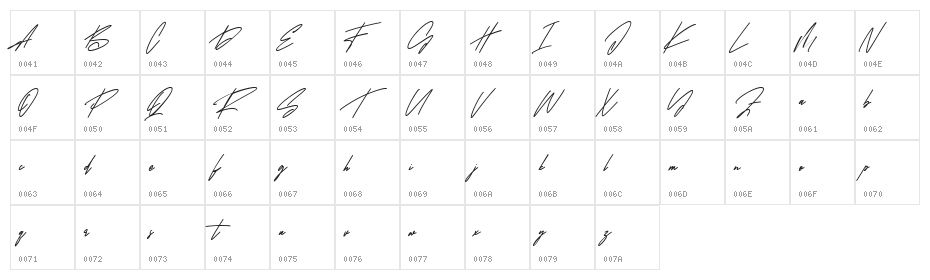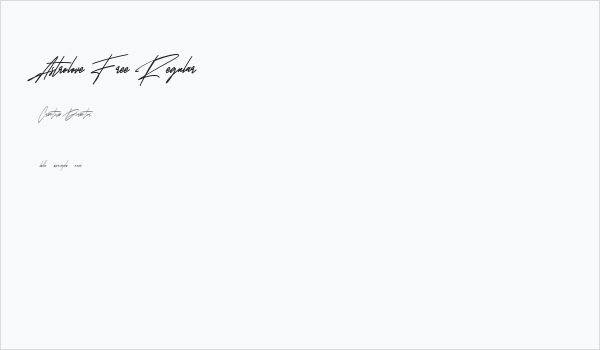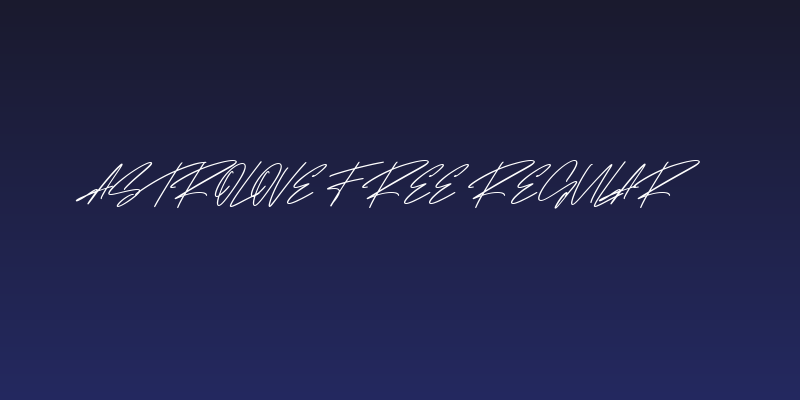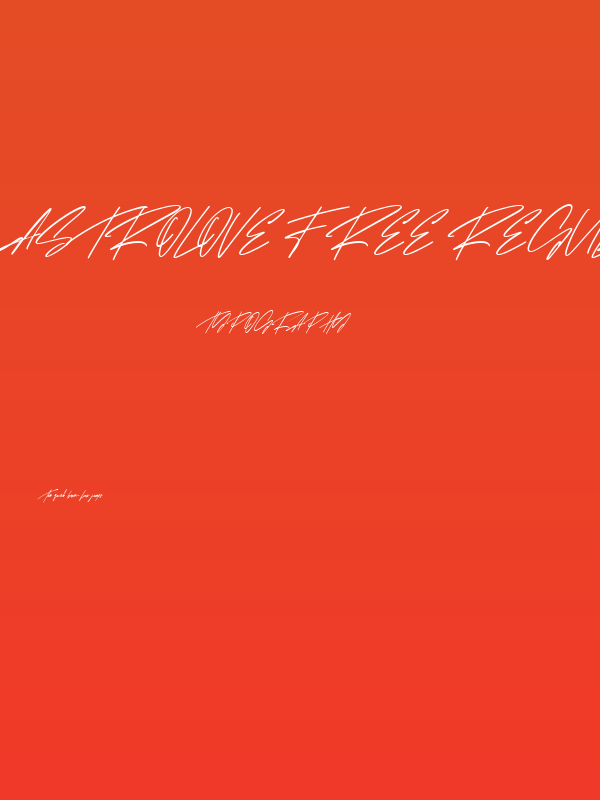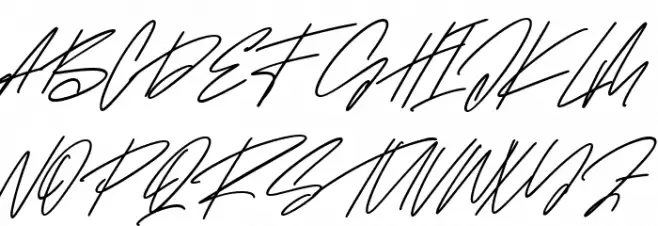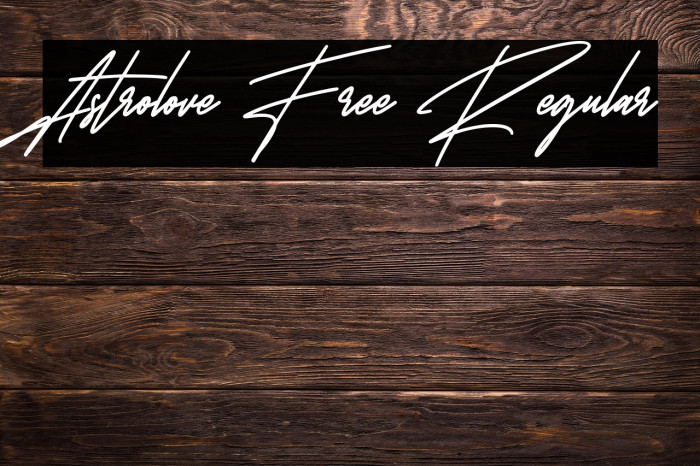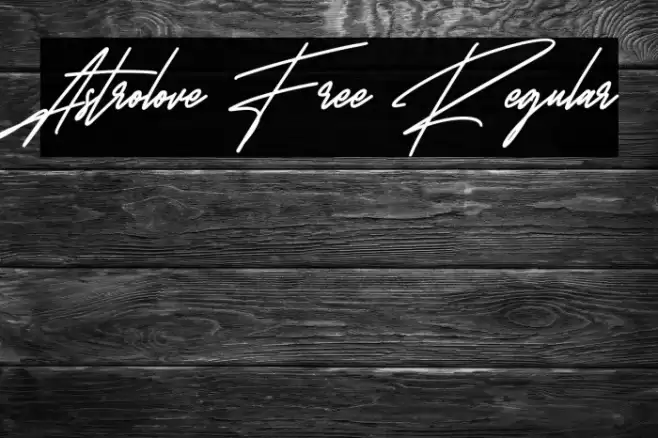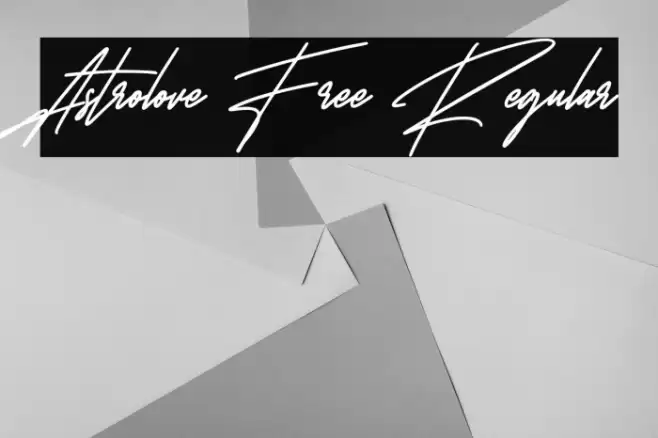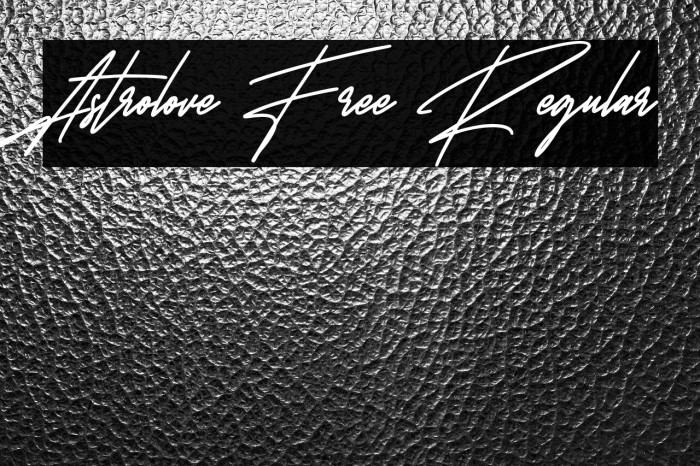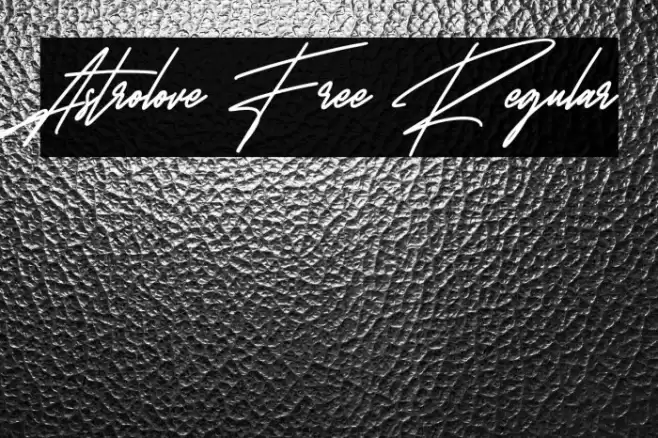
Astrolove Free Regular Font
This font exudes a dynamic and expressive style, characterized by its fluid, cursive script that mimics the natural flow of handwriting. The letters are interconnected, creating a seamless and elegant appearance. The strokes are varied in thickness, adding a sense of movement and energy to the text. Its overall aesthetic is both modern and artistic, making it suitable for creative and personal projects. The uppercase and lowercase letters maintain a consistent style, while the numerals and special characters complement the overall design, ensuring versatility in usage.